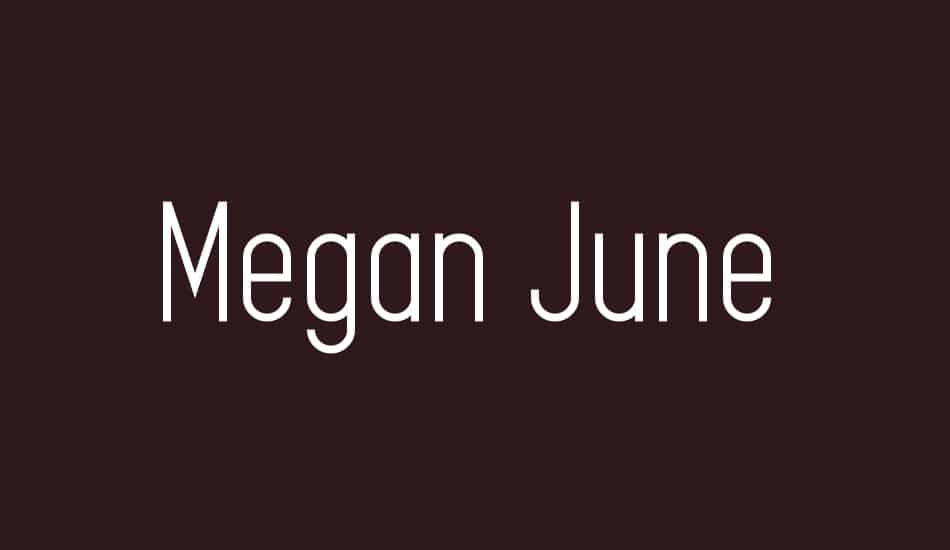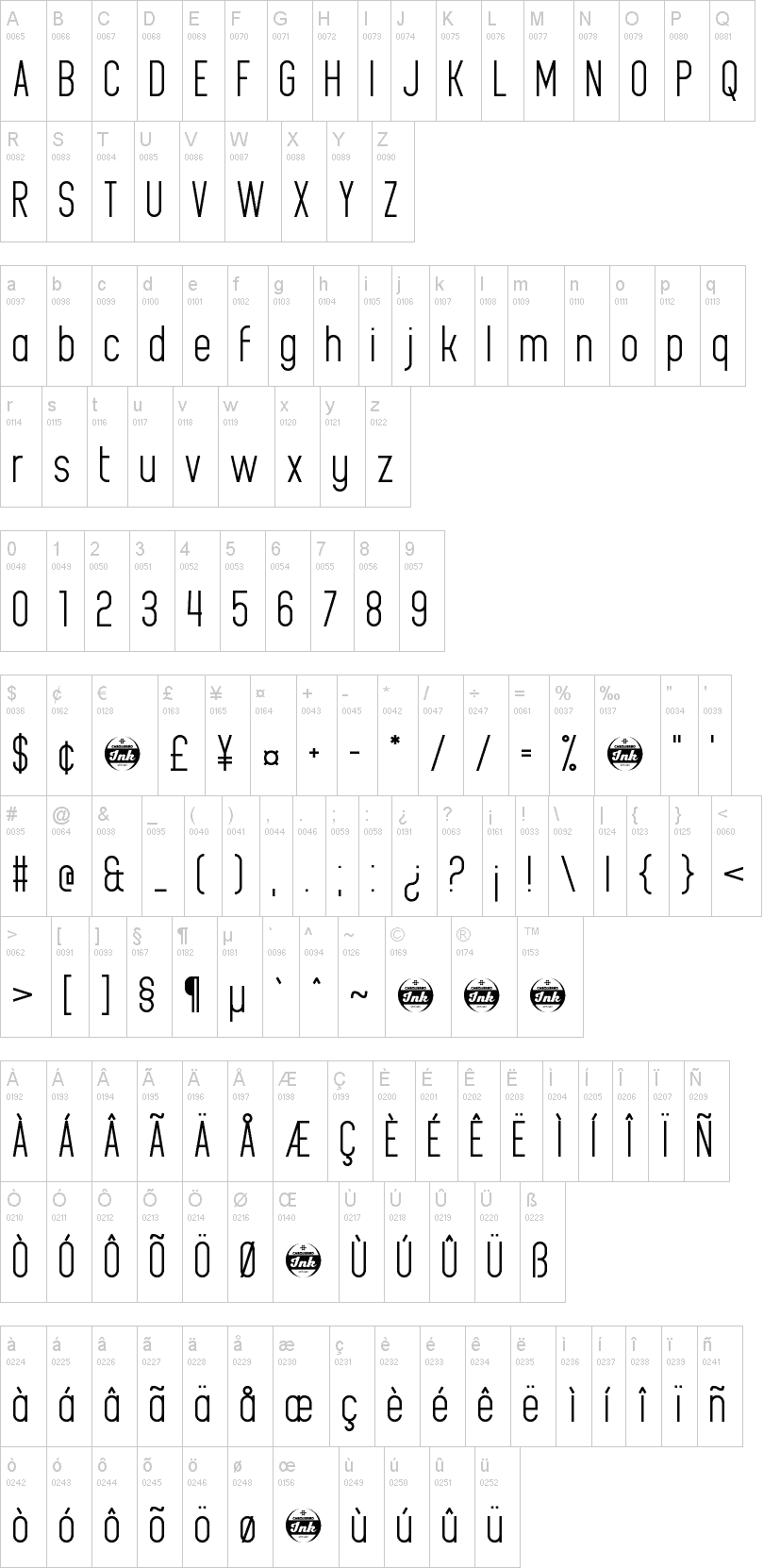
Discover Megan June Font Free, part of the Sans Serif collection—a versatile and unique font perfect for adding a personal touch to your projects. Download it for free and enjoy crafting designs with style, from invitations to social media posts. This font is available exclusively for personal use, giving you the freedom to create without limits. Unlock your creativity with Megan June Font Free today!